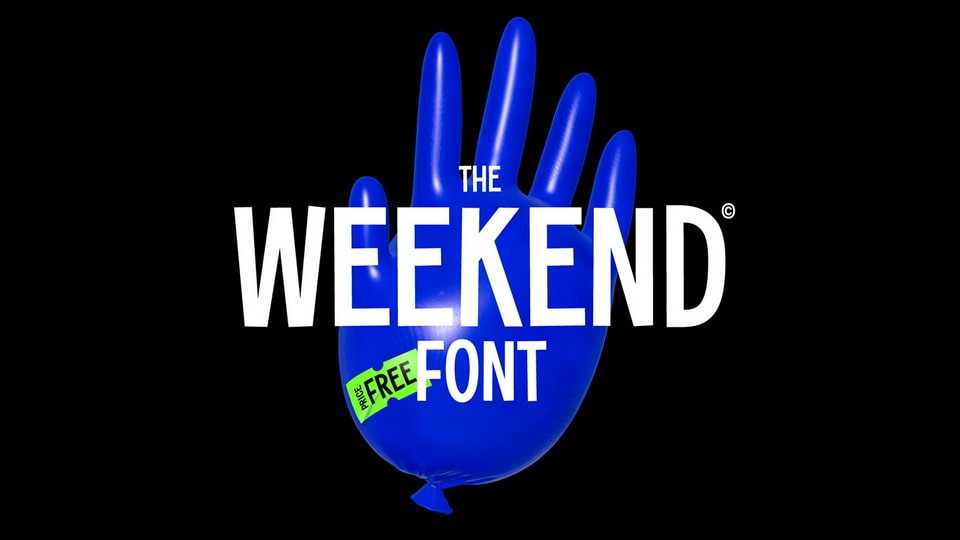
Download MV Weekend font, a playful, vibrant and expressive typeface. MV Weekend is the perfect choice for projects that demand a lively and dynamic touch, from eye-catching posters to expressive branding.
Designer: Mitya Vilson